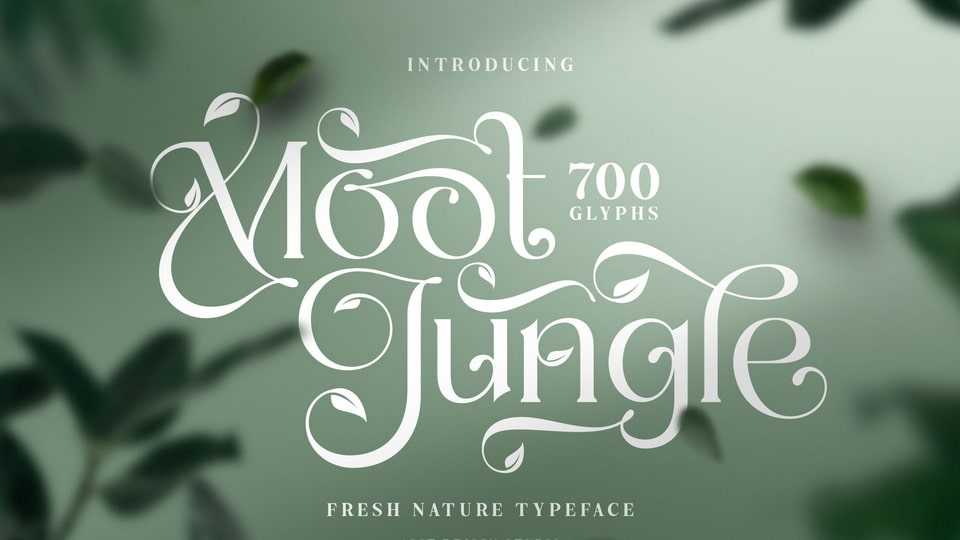
Download Moot Jungle font, an elegant serif typeface with a natural twist. Inspired by the beauty of nature, Moot Jungle font features a stunning swash of leaves that adds a touch of sophistication to any design.